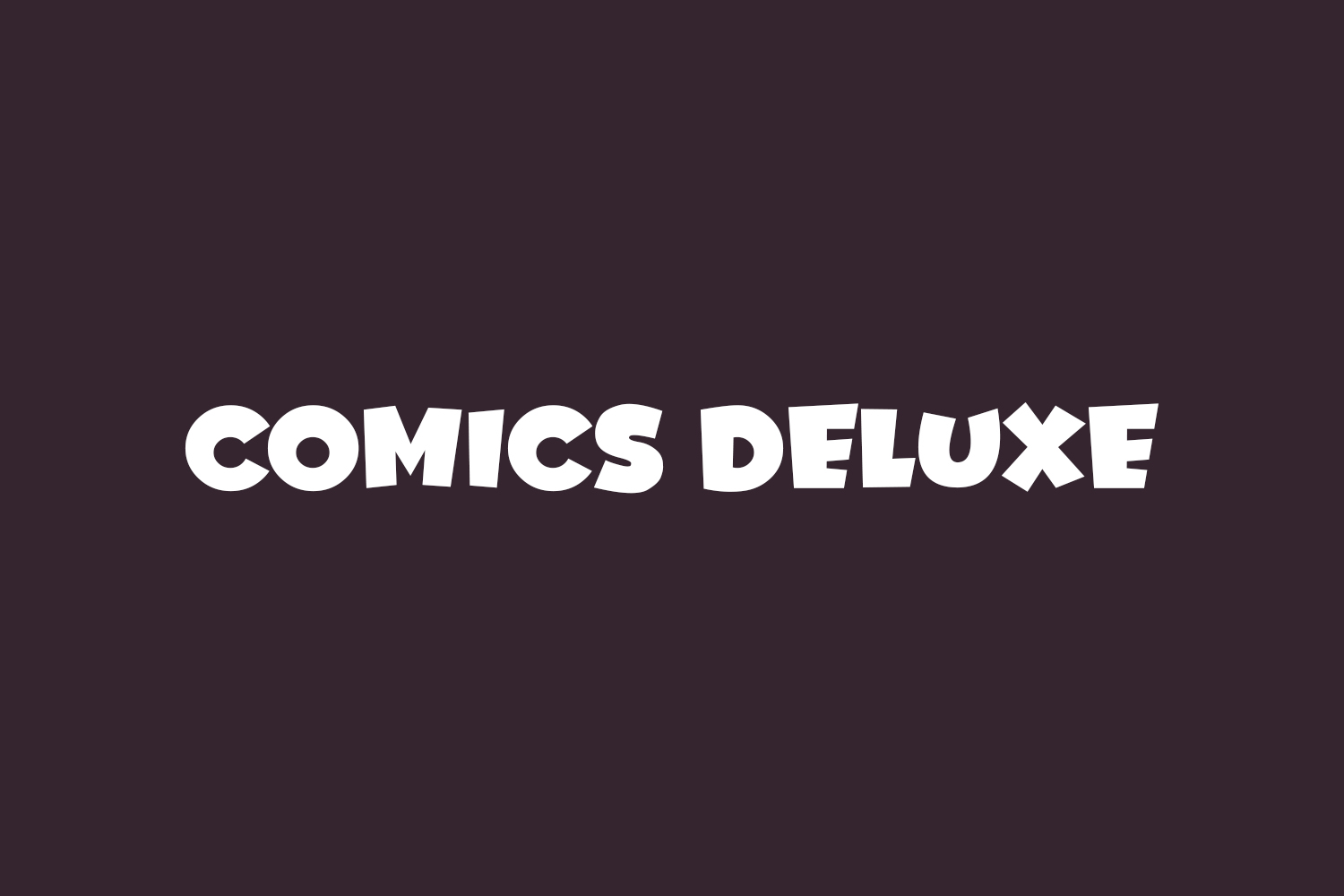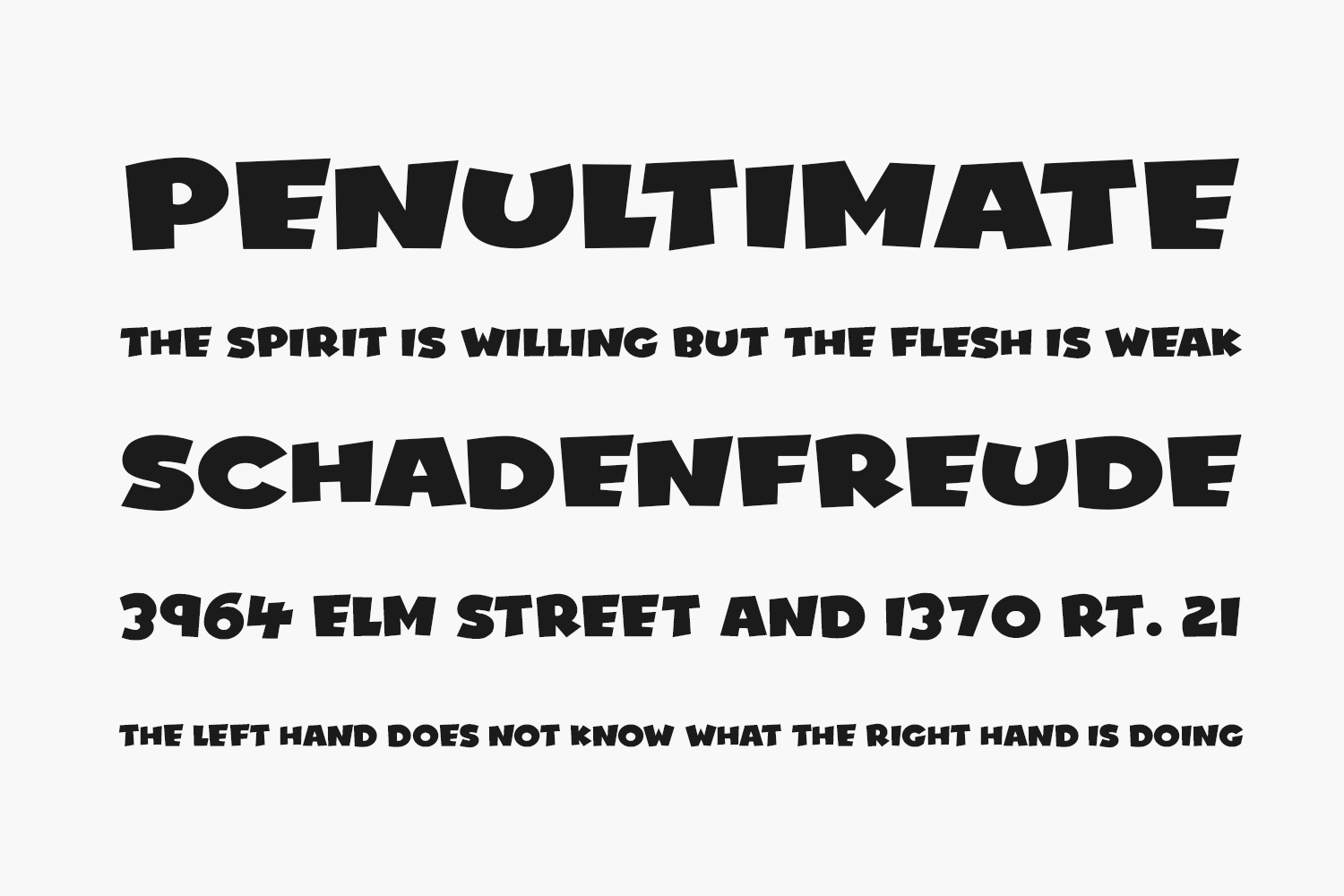
Comics Deluxe Free Font Family is a bouncy, fun font in a cute, rounded cartoon style. Perfect for any family-friendly purpose, where warmth and excitement are key! – cartoons, comics, animations, the sky’s the limit. Comics Deluxe Free Font Family is free for personal use only. Please purchase the full version for commercial use.
Designed by Darrell Flood